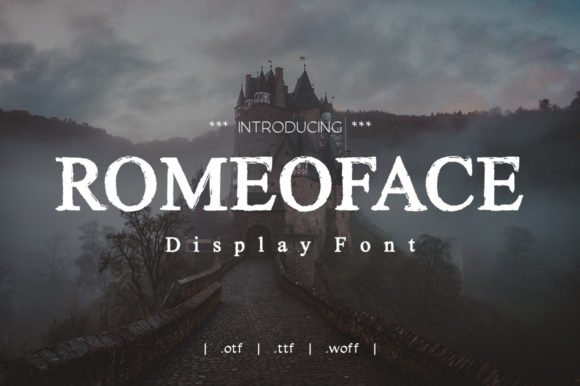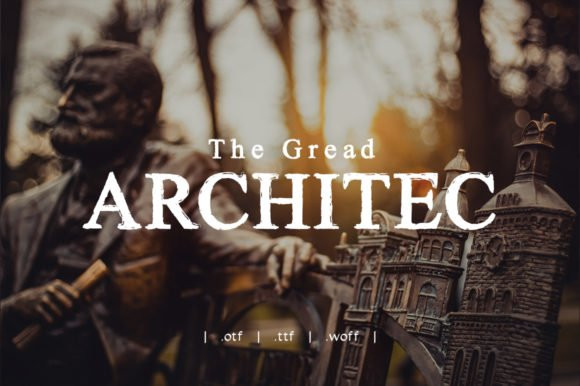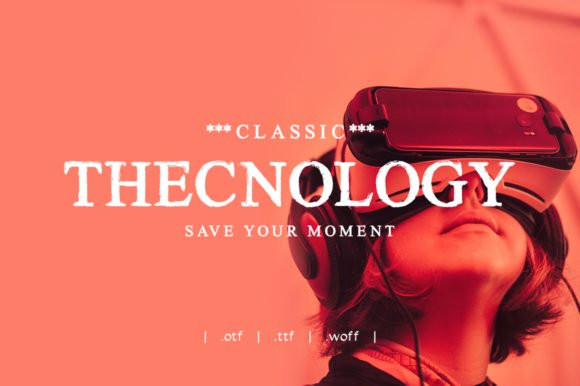
Romeoface Font
Romeoface is a classy and versatile display font that will turn any design idea into a true standout. Get inspired by its unique charm!